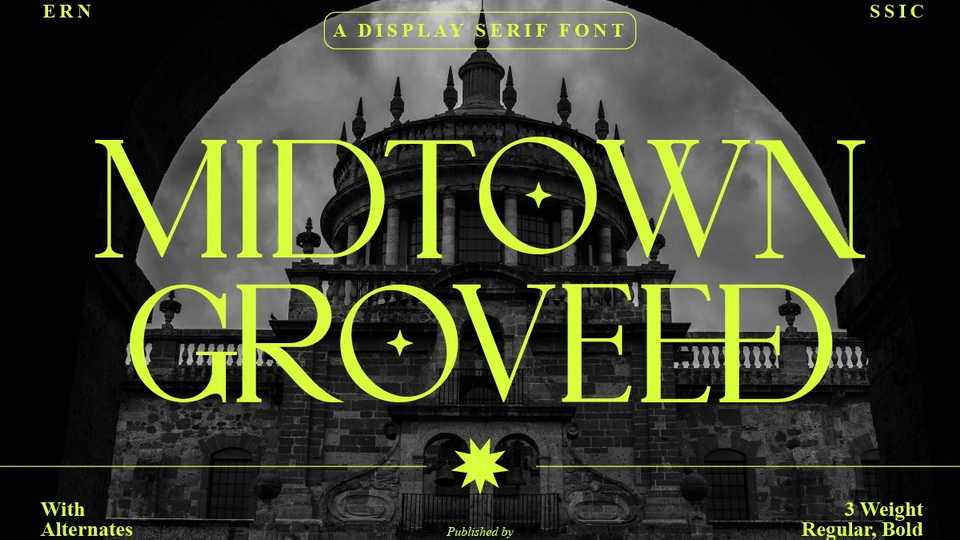
Download Midtown Groveed font, an elegant classic serif typeface. Midtown Groveed is a simple font, with a thin size, adds an luxury and stylish impression.